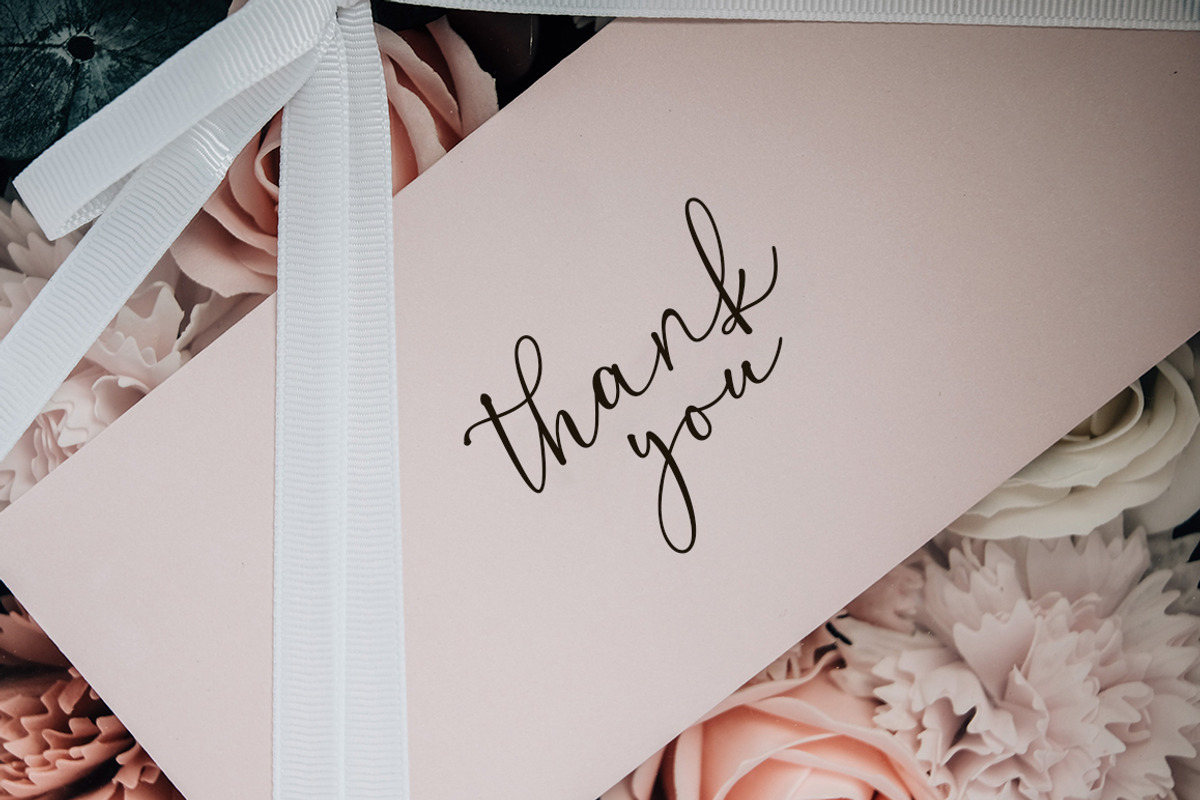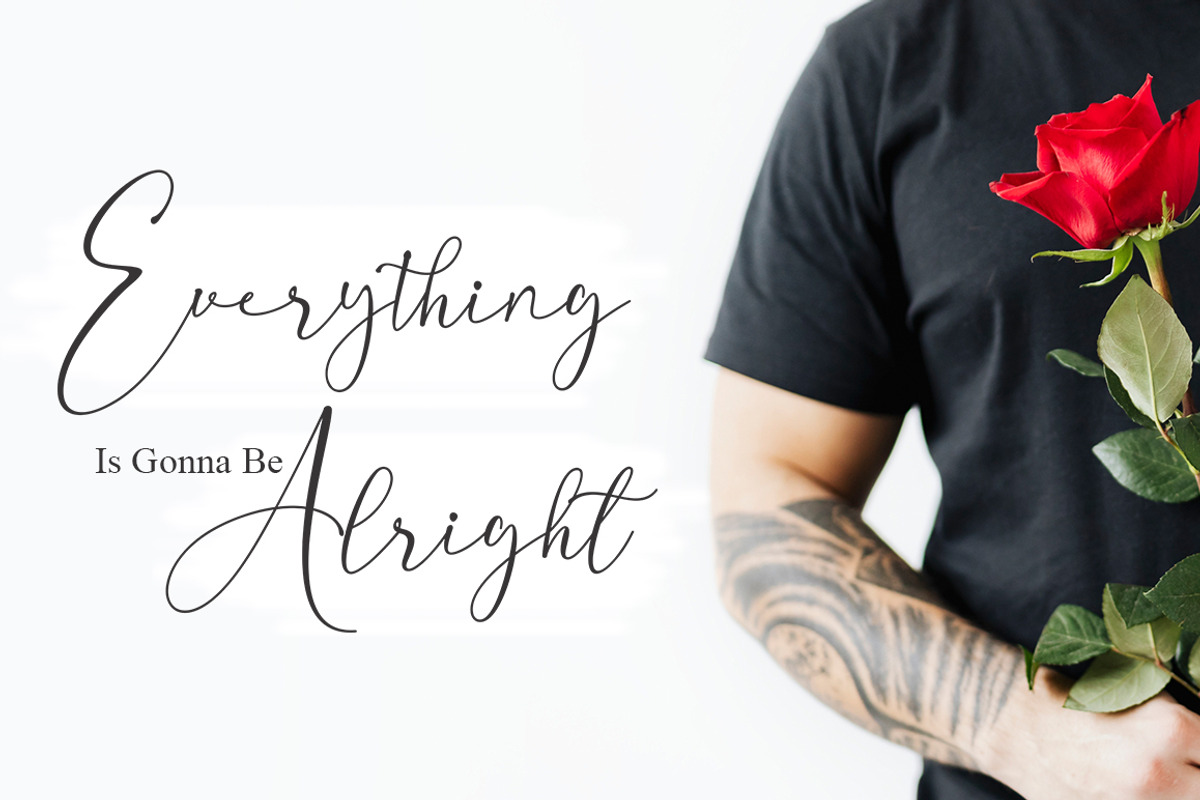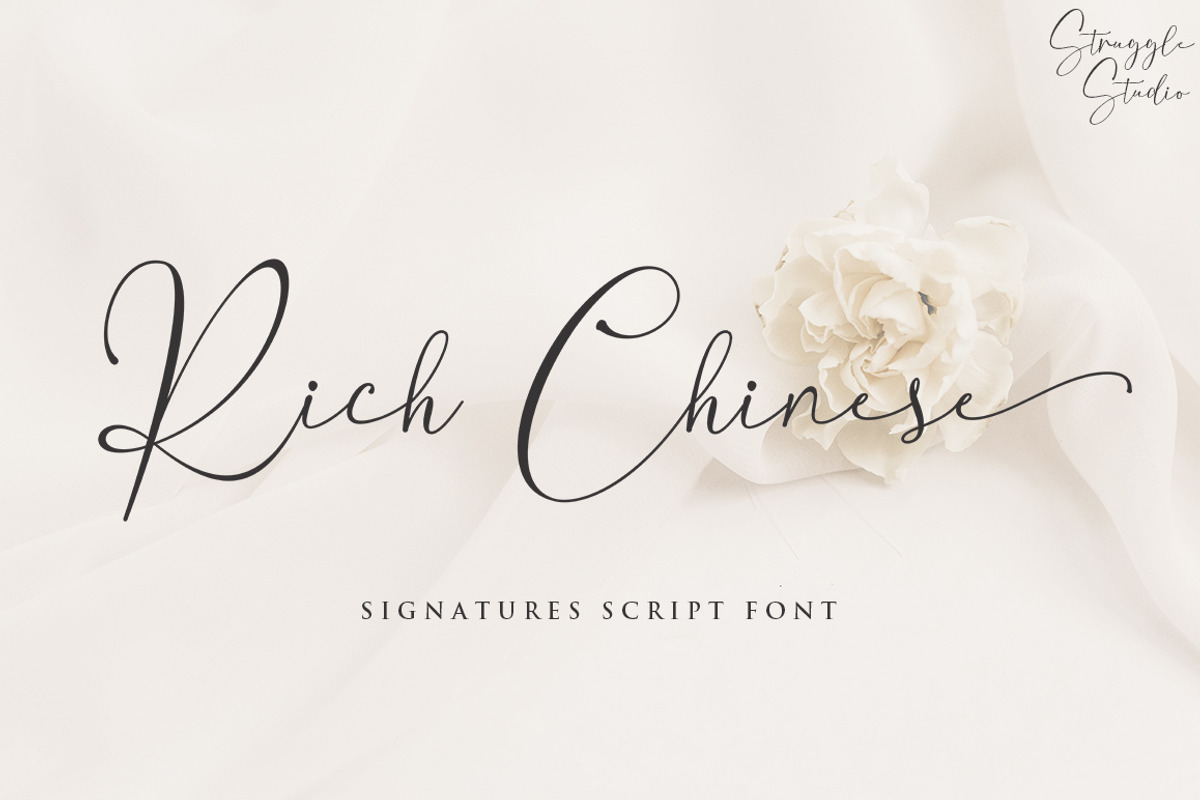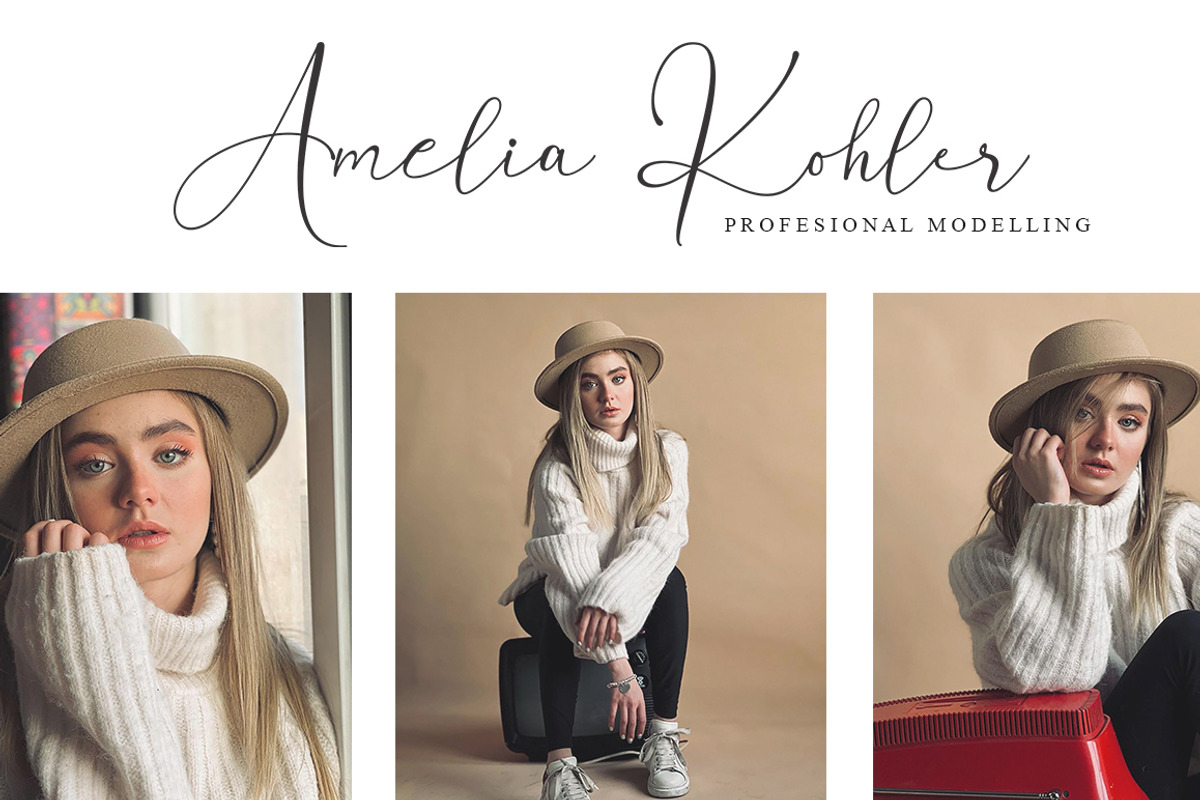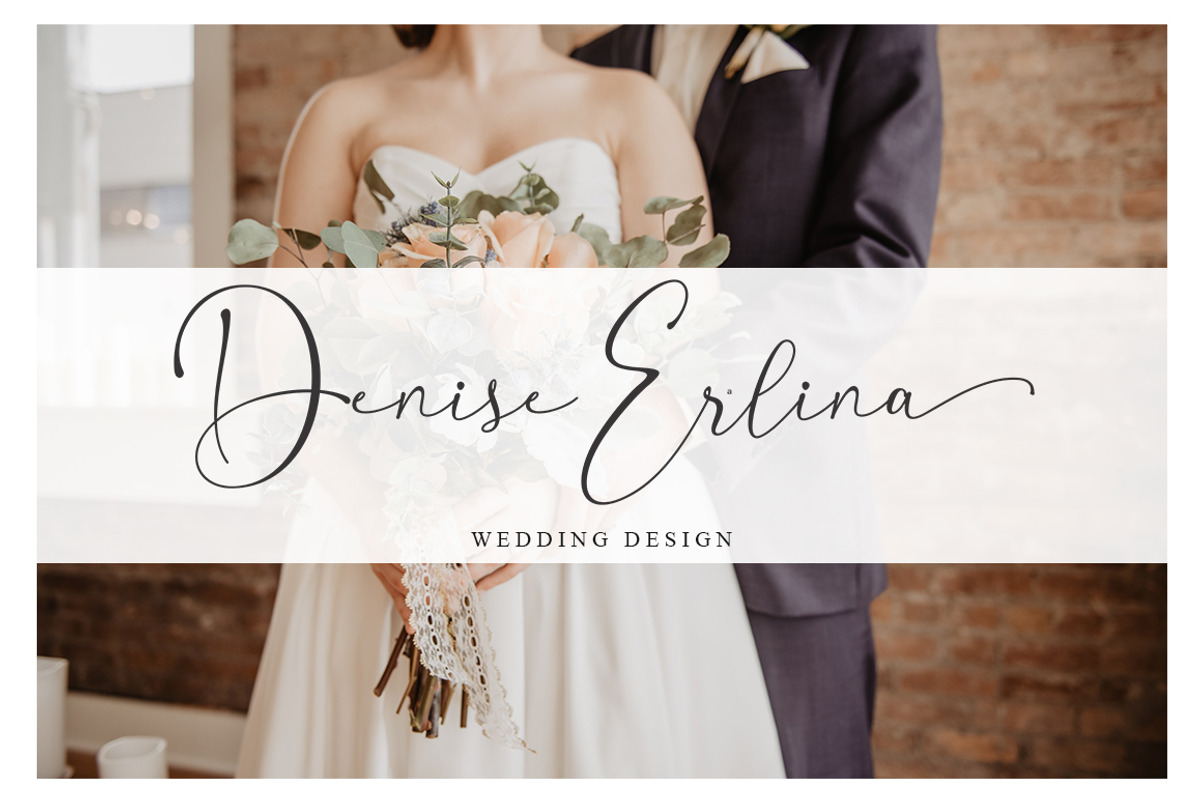
Rich Chinese
Rich Chinese - is signature font with a smooth shapes
Rich Chinese is perfect for branding projects, logo, wedding designs, social media posts, advertisements, product packaging, product designs, label, photography, watermark, invitation, stationery and any projects that need handwriting taste.